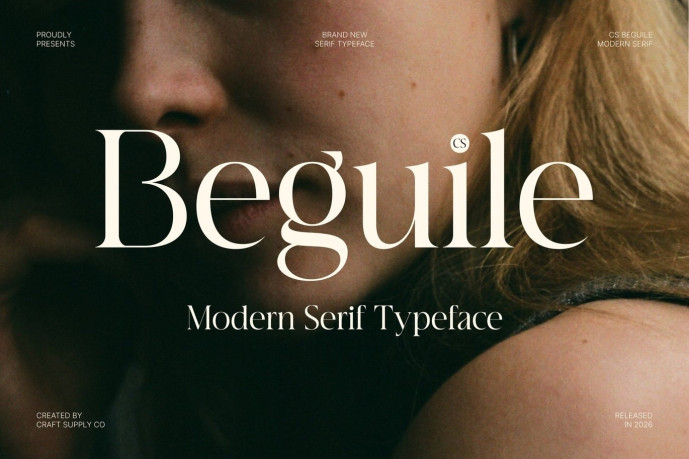
Beguile – Modern Serif Font
Designer: Craft Supply Co.
CS Beguile – Modern Serif Font: Where Contemporary Elegance Meets Timeless Sophistication Elegant Design with Professional Character This is a modern serif font designed to communicate elegance and professionalism through its refined letterforms and balanced proportions. Its clean structure and graceful serif details create a sophisticated visual identity that feels contemporary, polished, and effortlessly luxurious. Every character is crafted to deliver clarity while maintaining an unmistakable sense of prestige.
Contemporary Style with Timeless Appeal This font e offers a versatile aesthetic that remains relevant across a wide range of premium design applications. Its harmonious stroke contrast and carefully shaped serifs create a graceful rhythm, giving the font a timeless quality that enhances both bold headlines and elegant branding.
Sophisticated Expression with Lasting Impact This font conveys confidence through its understated elegance. Its refined construction allows it to stand out without excessive ornamentation, making it an excellent choice for designs that value clarity, exclusivity, and tasteful sophistication. Whether used in print or digital media, it delivers a premium visual experience that leaves a lasting impression.
Perfect for Luxury Products and High-End Design Perfect for luxury brand identities, fashion and beauty branding, editorial layouts, magazine covers, premium packaging, hotel and hospitality branding, invitations, product labels, logos, advertising campaigns, and other high-end creative projects. Its elegant serif forms make it ideal for typography that seeks to communicate refinement, professionalism, and timeless luxury.